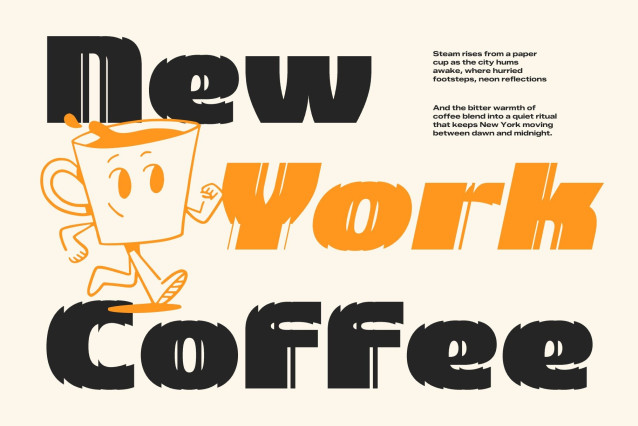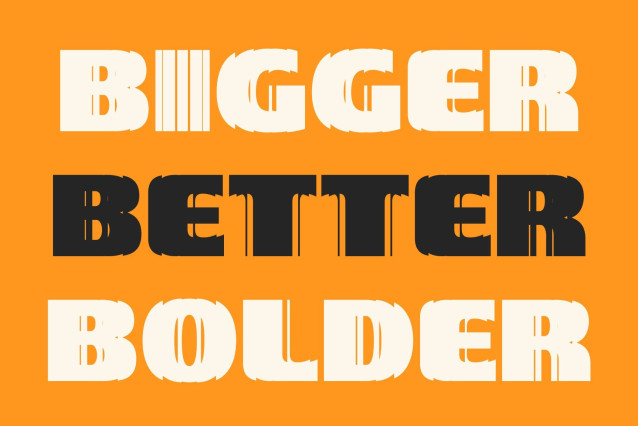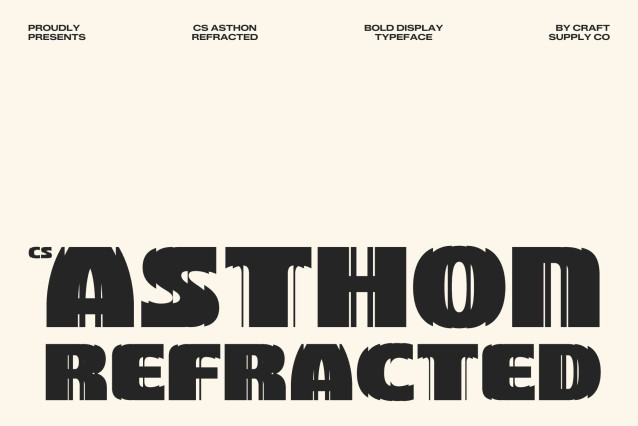
CS Asthon Refracted – Bold Sans Serif Font: Pure Clarity with Futuristic Light Distortion
Clean Geometric Structure with Confident Visual Power
This is a bold sans serif typeface designed with a strong focus on clarity, precision, and modern simplicity. Built from clean geometric forms and minimal detailing, it delivers a direct and powerful visual presence. Its structured letterforms communicate confidence and professionalism, making it an ideal choice for contemporary design systems that value readability and impact.
Refracted Effects for a Futuristic Visual Identity
The defining character of this font lies in its light-inspired distortion treatment, where subtle geometric slices and fragmented lines pass through each letterform. These refracted elements introduce a futuristic glitch aesthetic that adds depth, motion, and energy. The contrast between clean structure and digital distortion creates a bold and memorable typographic identity.